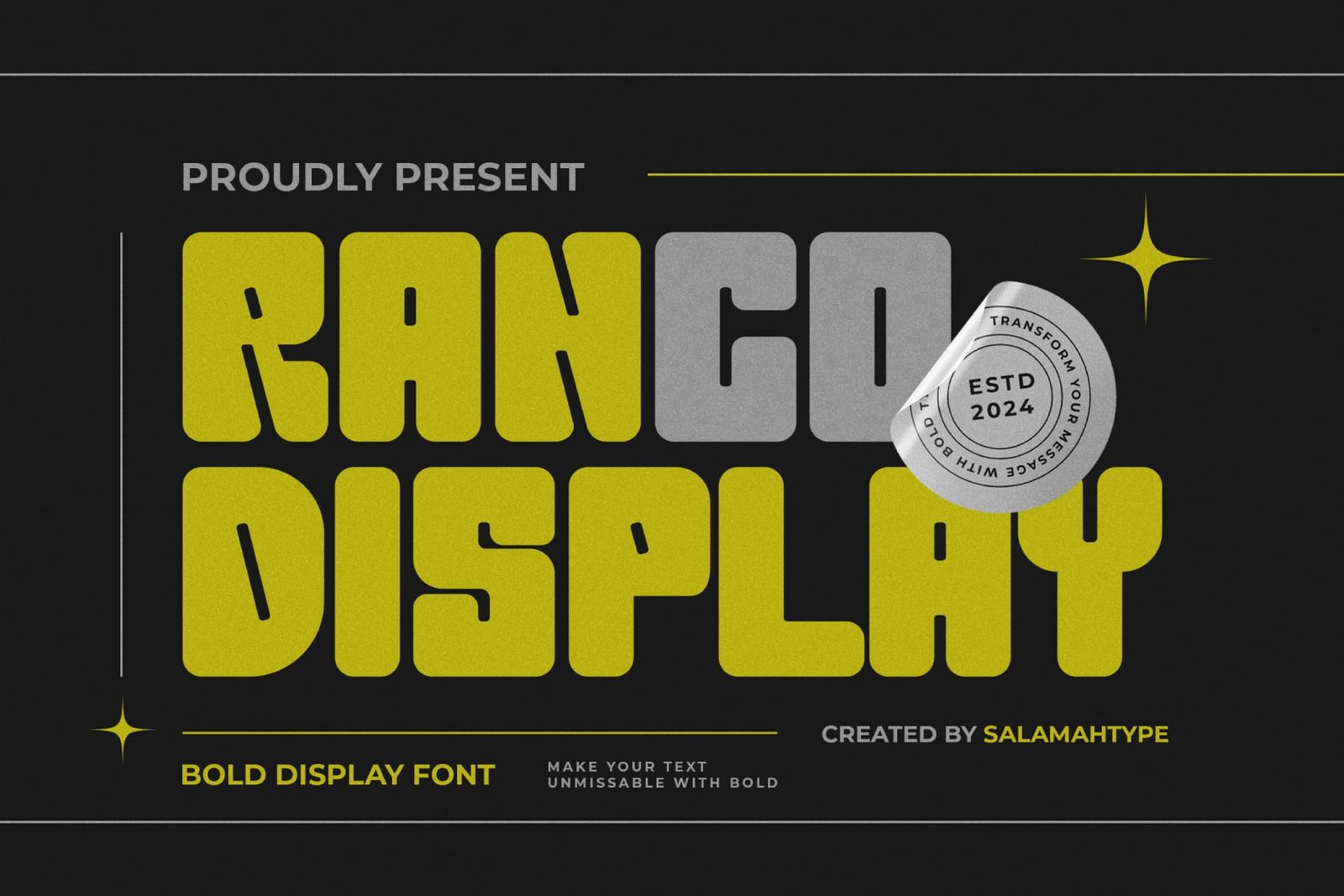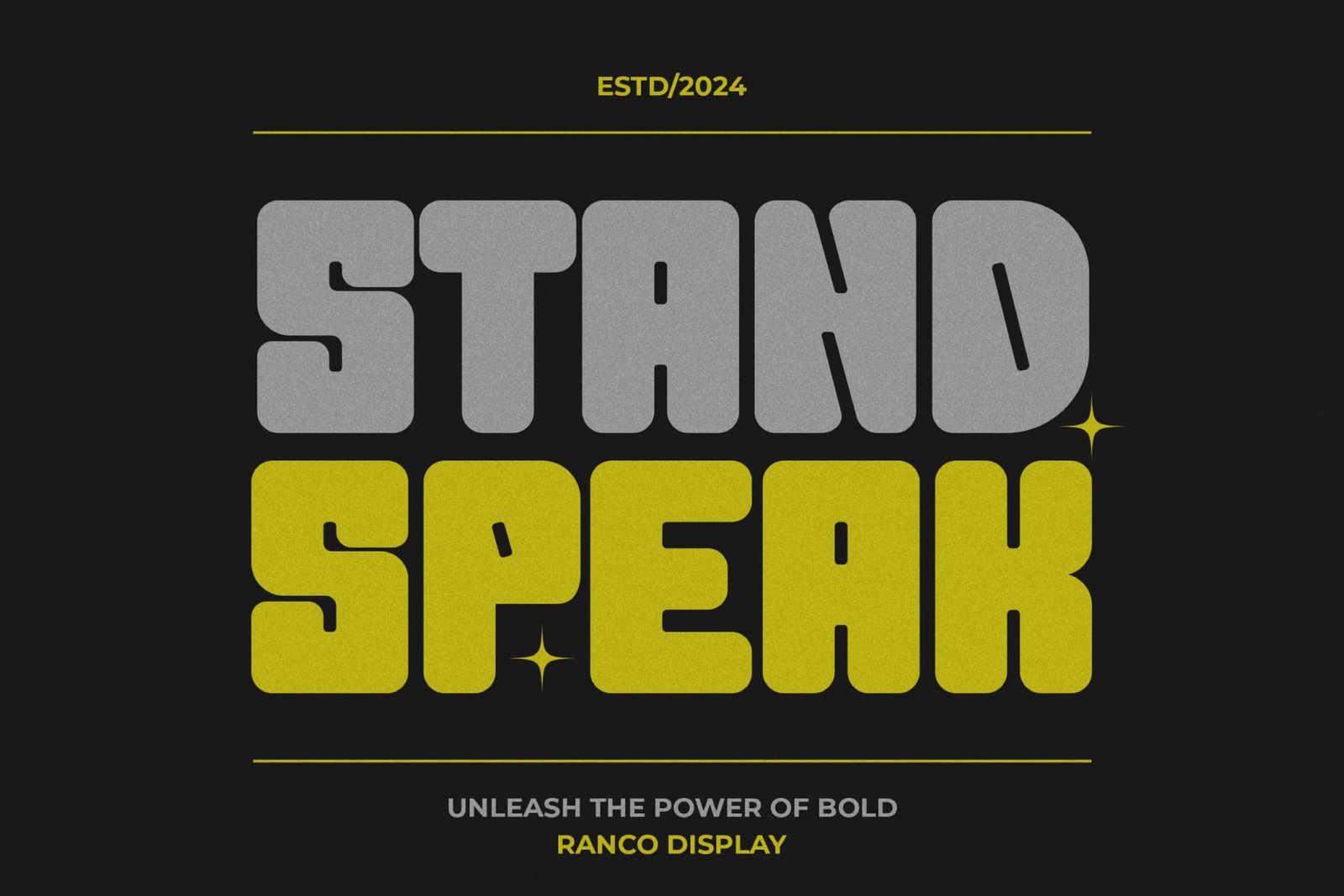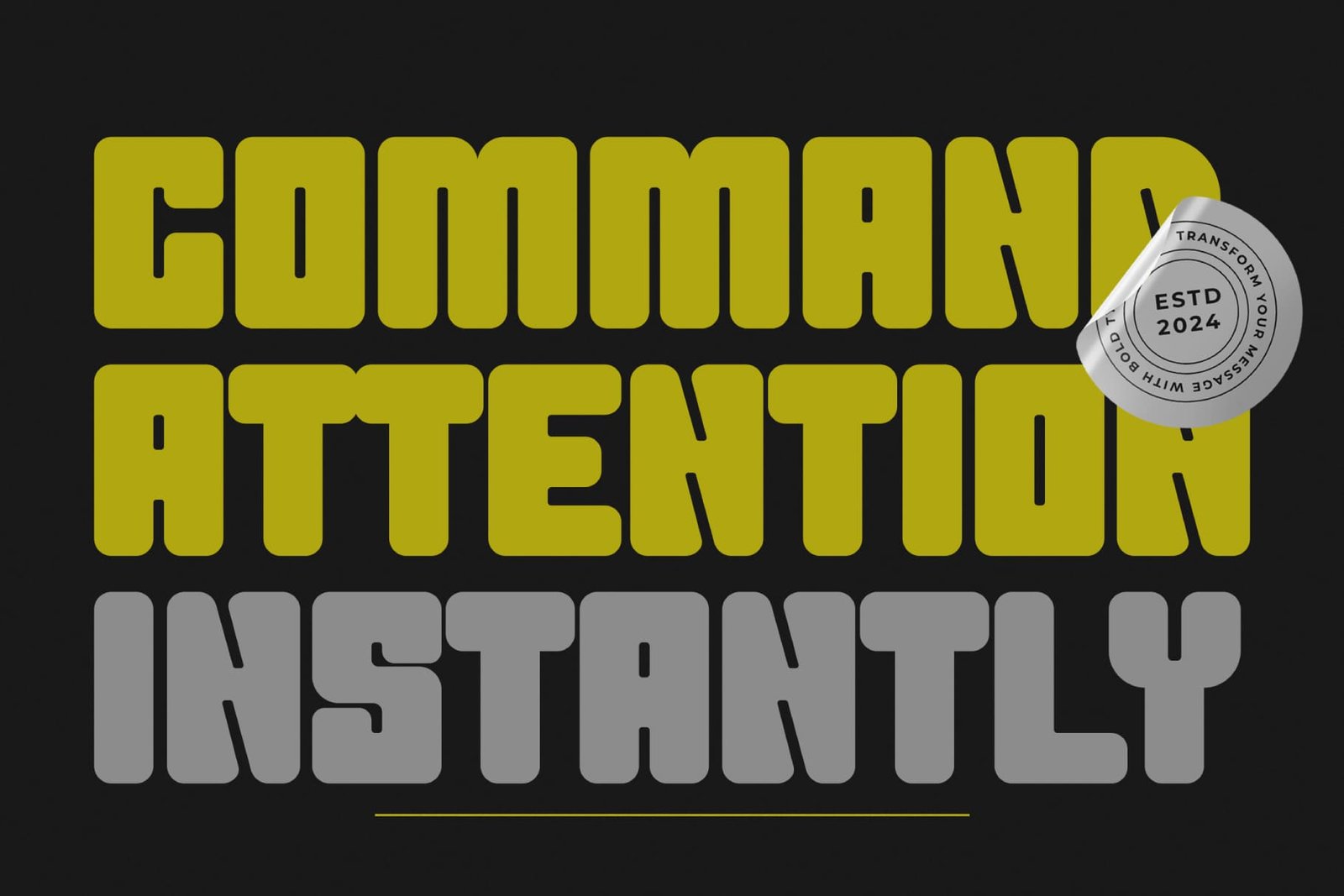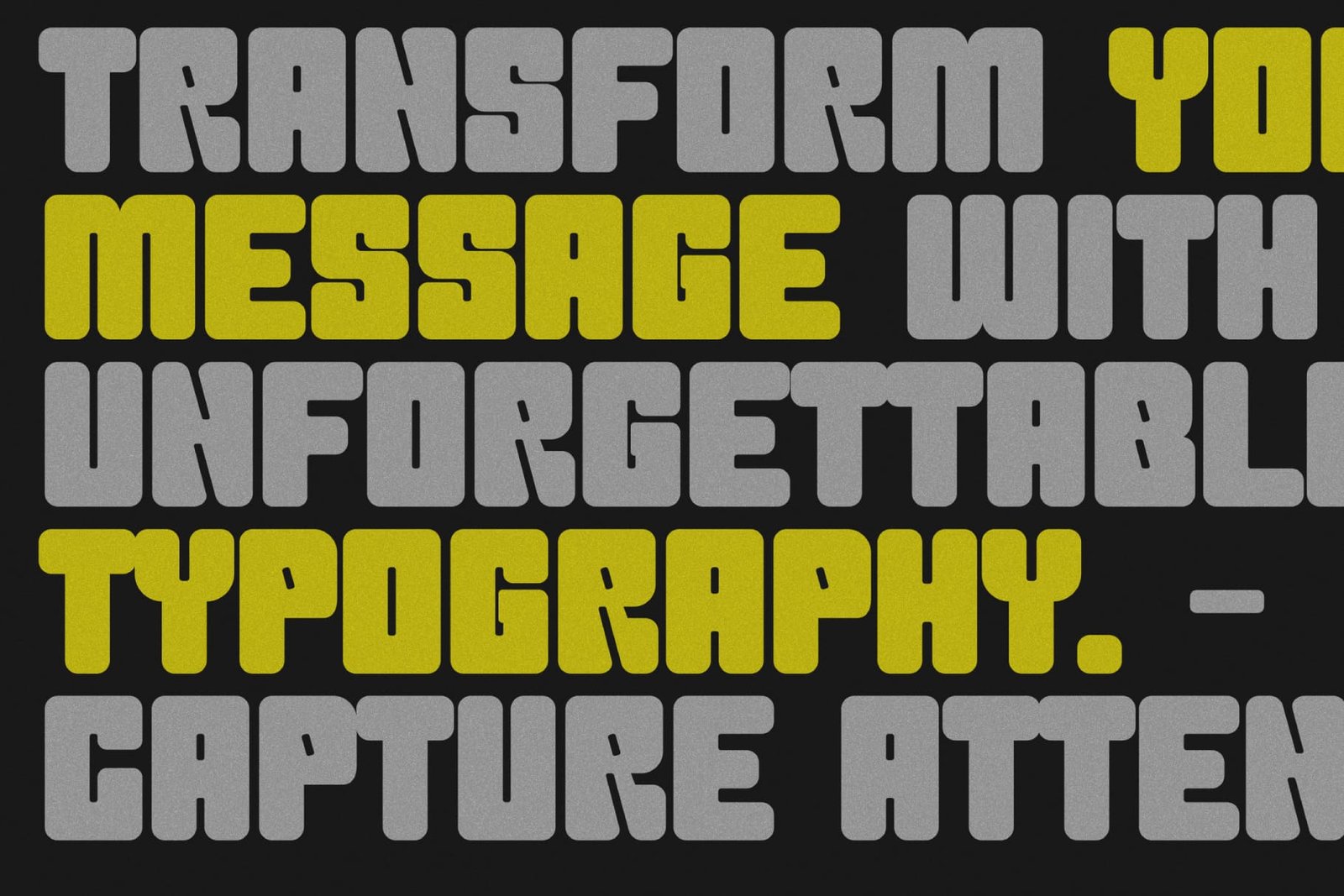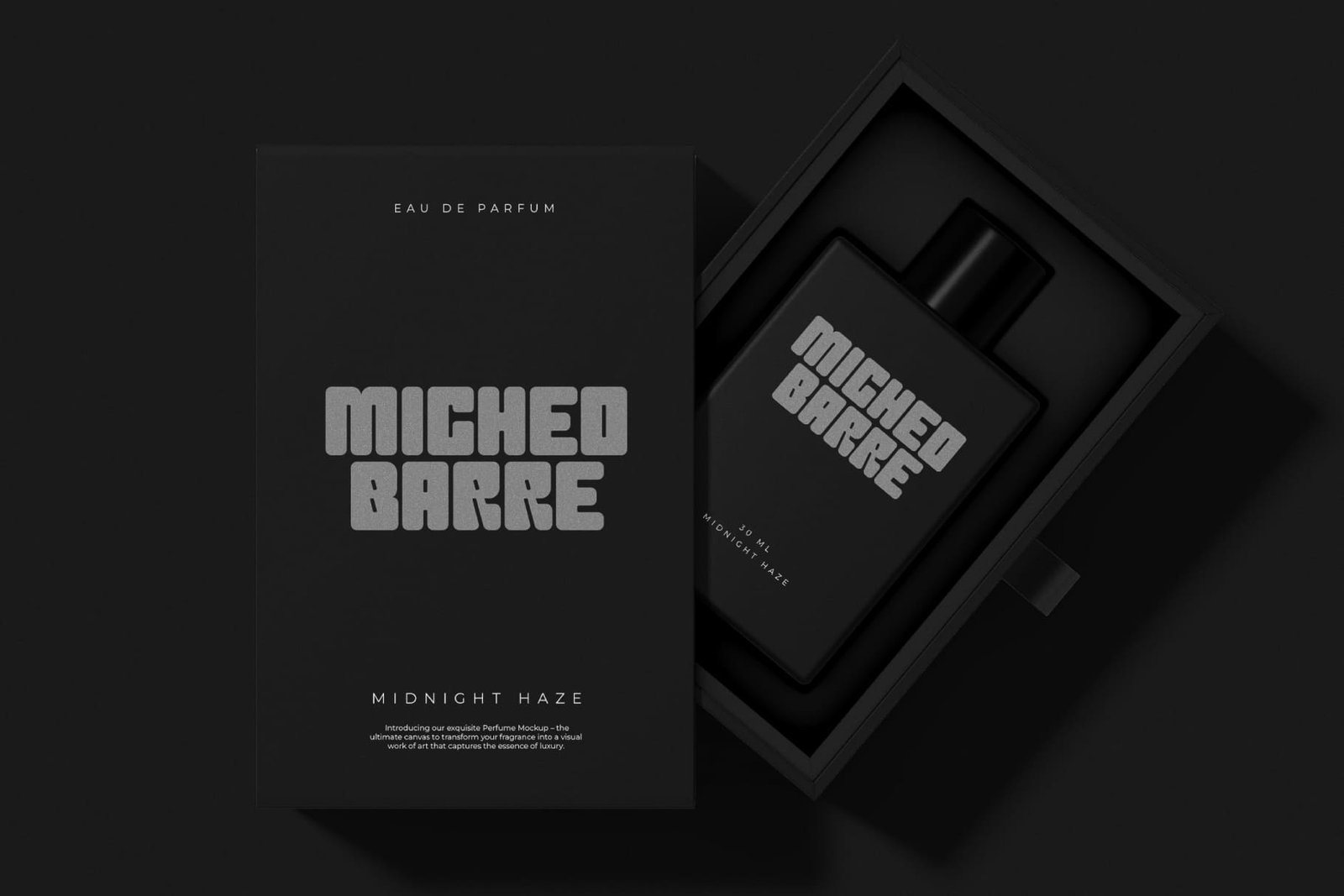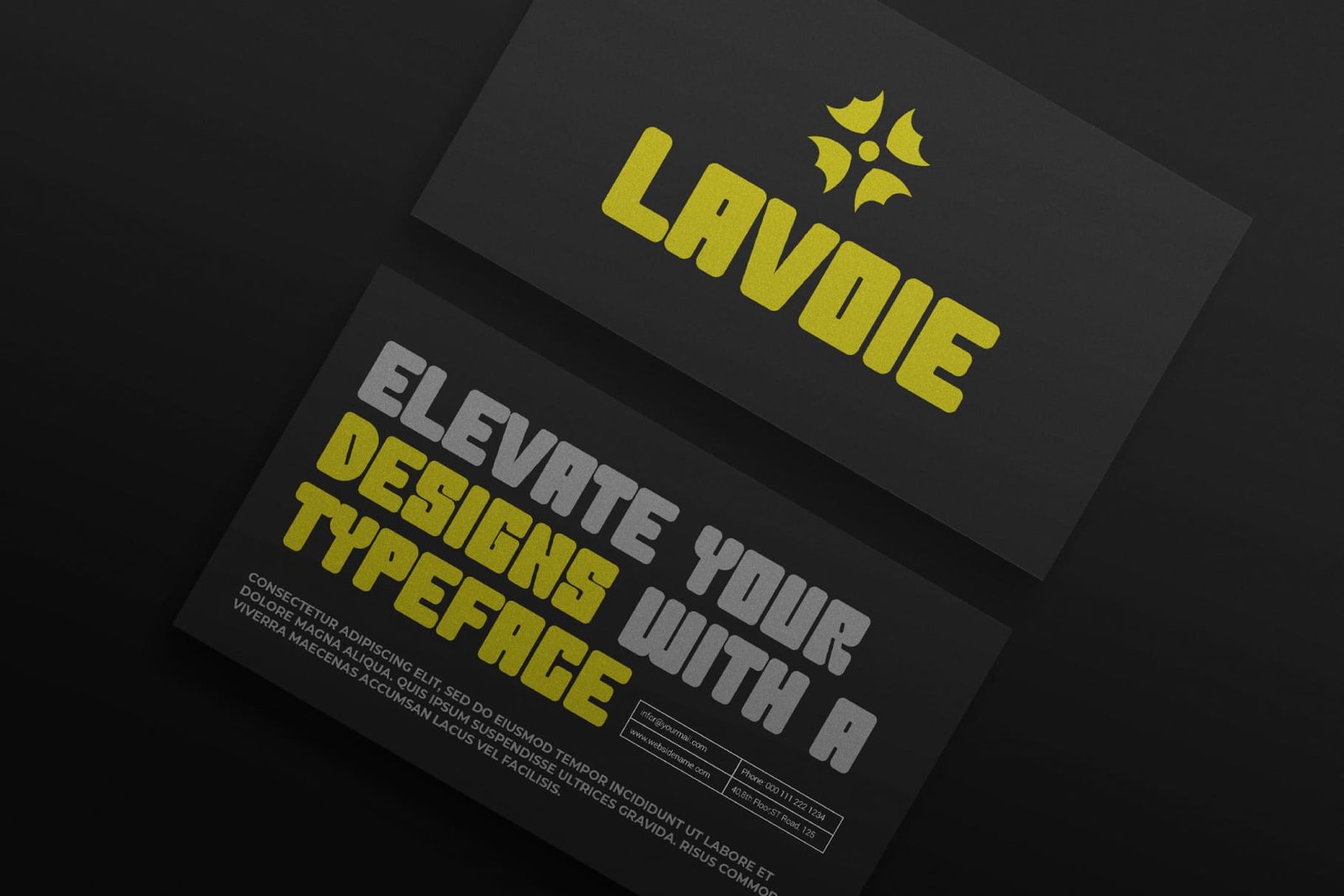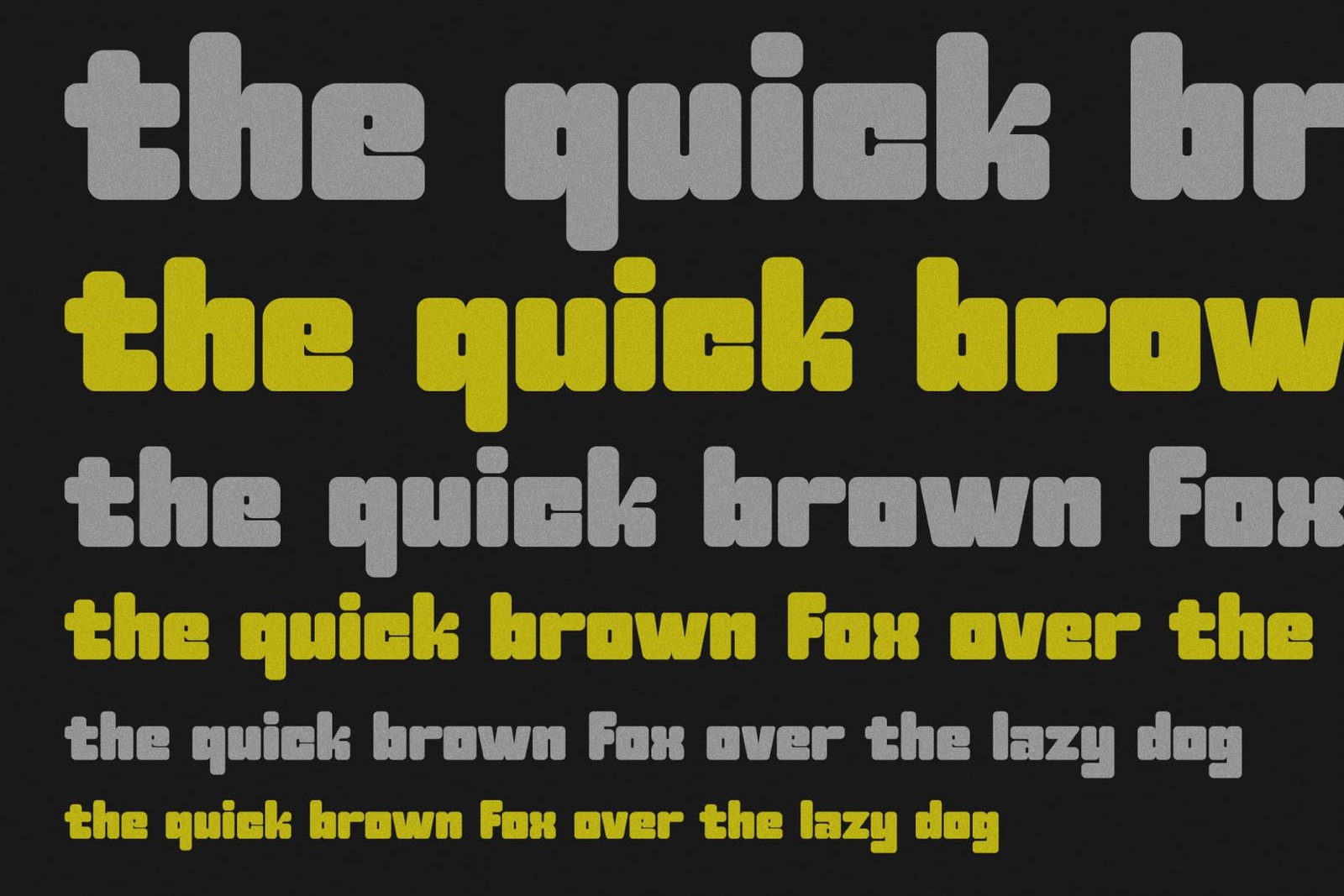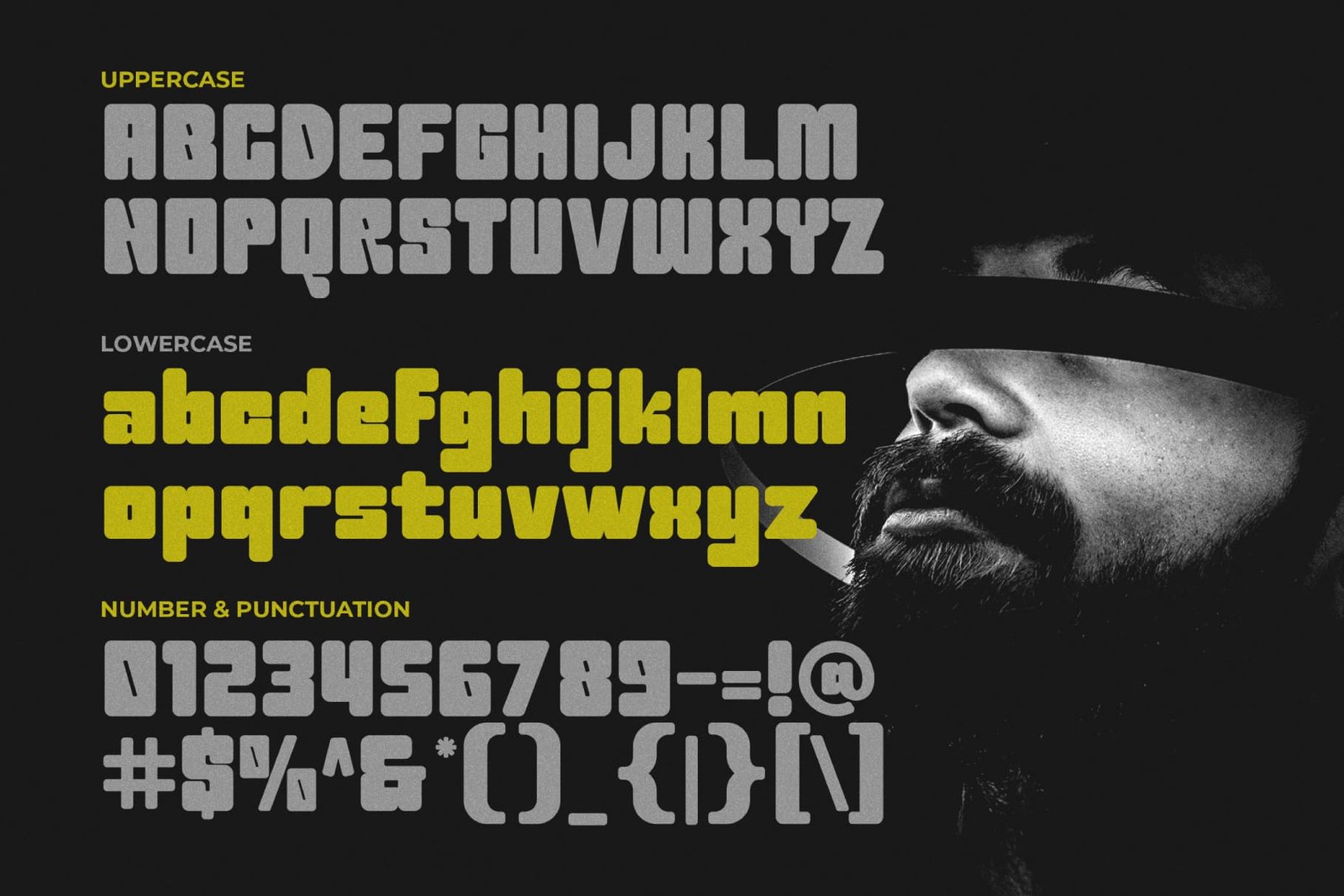
Ranco
“Ranco” is a bold modern display font perfect for logo templates. Designed for maximum impact, this font combines contemporary aesthetics with versatile usability, making it ideal for a variety of branding applications. Whether for corporate identity, creative projects or digital media.
Font features:
- Uppercase Lowercase
- Punctuation, Numbers, Symbols
- Multilingual Support